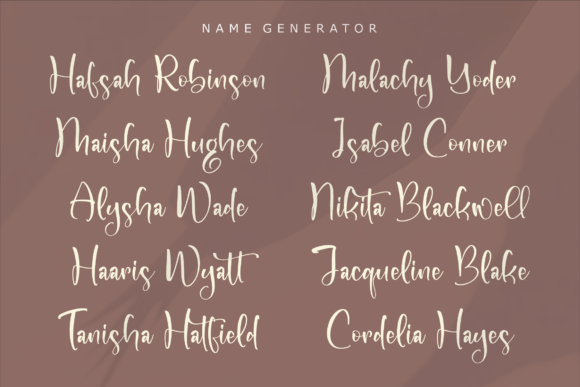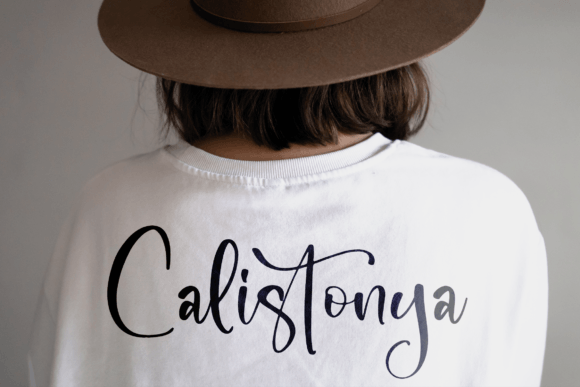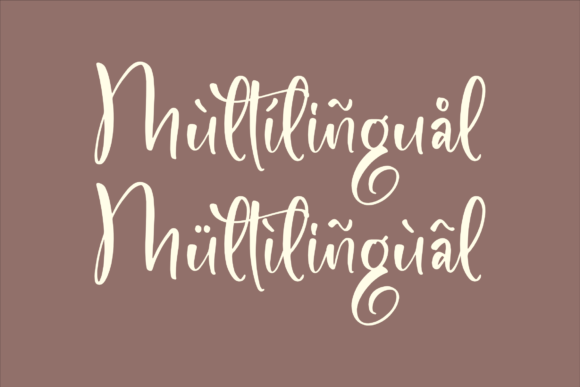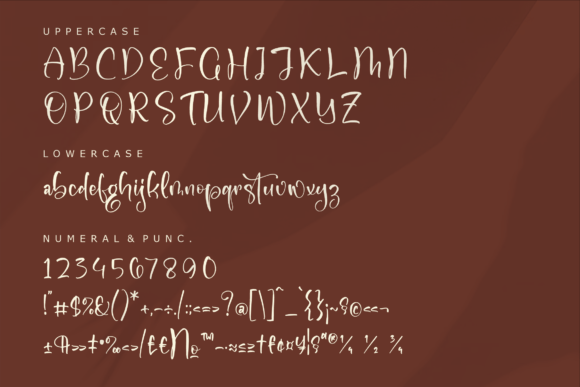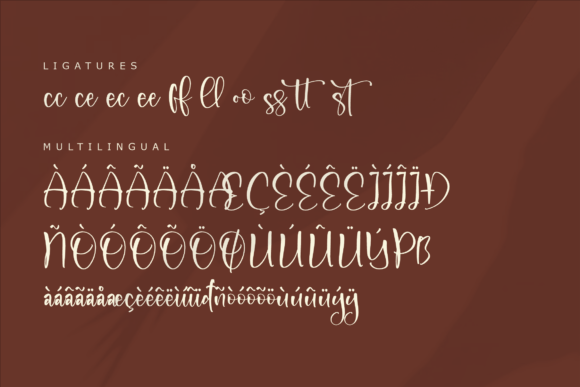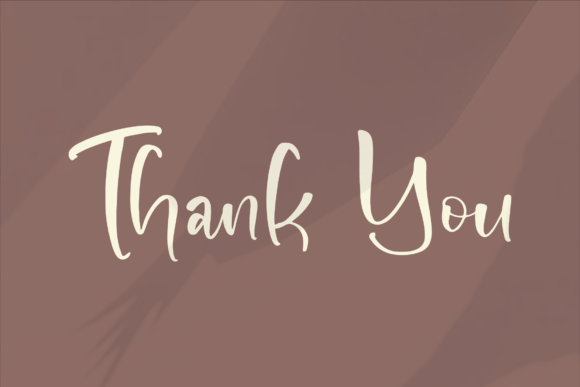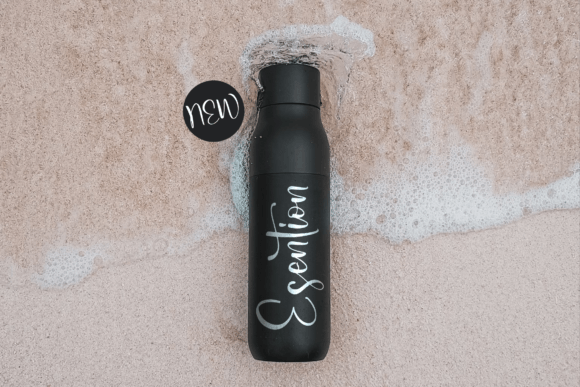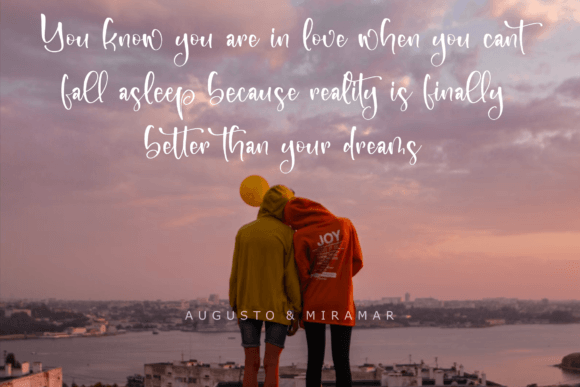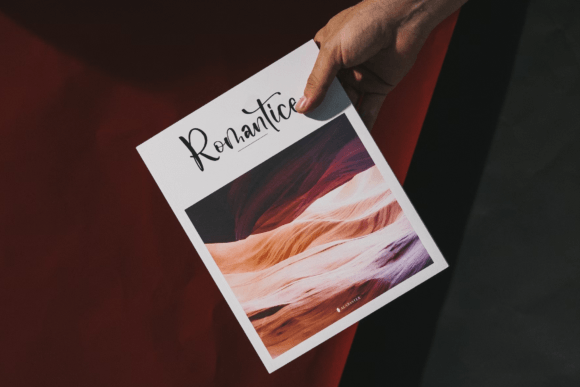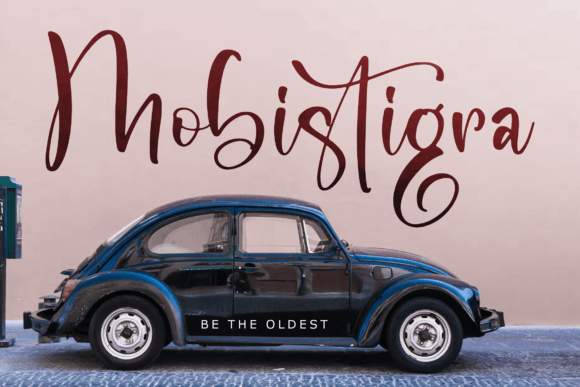
Chystigra Font
About Chystigra Font
Chystigra font is a beautifully crafted handwritten script that perfectly blends charm and elegance. This font is ideal for a wide range of design projects where a personal, handwritten touch is needed. Whether you are designing wedding invitations, thank you cards, quotes, logos, business cards, or greeting cards, Chystigra font adds sophistication and warmth to your work.
Elegant Handwritten Style for All Occasions
The handwritten style of Chystigrafont gives your designs a natural and inviting look. Its flowing lines and balanced letterforms make it highly readable while retaining a graceful appearance. This font’s elegant character makes it especially suitable for formal occasions like weddings, bridal showers, and anniversary celebrations.
Perfect for Wedding Invitations and Thank You Cards
Chystigra shines brightest in wedding and event stationery. Its delicate strokes and refined style lend an air of romance and class to invitations and thank you cards. Using Chystigra font ensures your designs feel heartfelt and memorable, creating an emotional connection with recipients.
Ideal for Branding and Logo Design
Beyond weddings, Chystigrafont is a fantastic choice for logos and branding projects. The elegant handwritten look conveys authenticity and sophistication, making it great for boutique brands, fashion labels, beauty products, and creative agencies. The font’s versatility allows it to enhance business cards, packaging, and promotional materials effortlessly.
Versatile Use in Various Creative Projects
Chystigrafont adapts well to a variety of creative needs. Use it for social media posts, quotes, greeting cards, posters, and more. Its timeless style ensures your designs remain stylish and relevant for years to come.
Why Choose Chystigra Font?
Chystigrafont stands out due to its unique balance of charm and elegance. It offers designers a refined, option that works across many project types. With Chystigra, you can easily add a personal yet feel to your work, elevating your designs and engaging your audience.